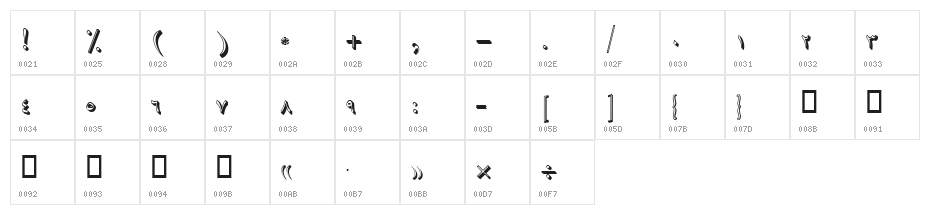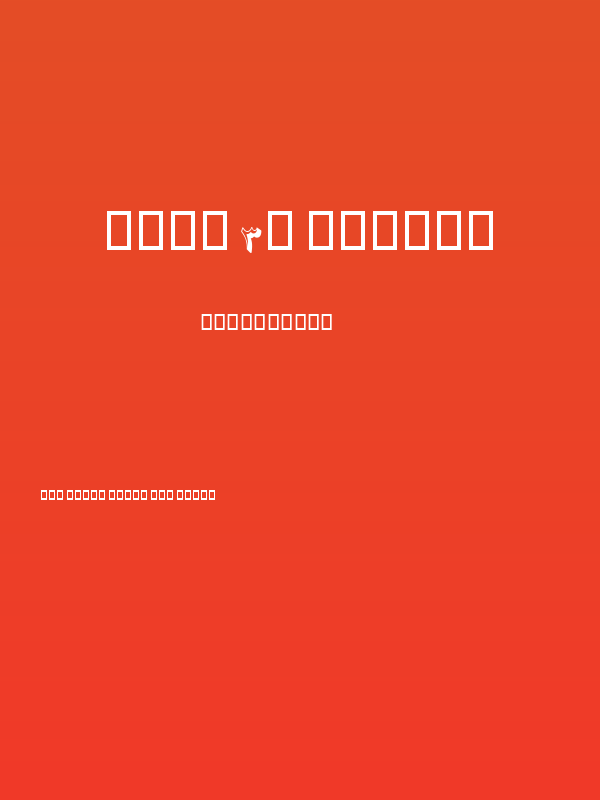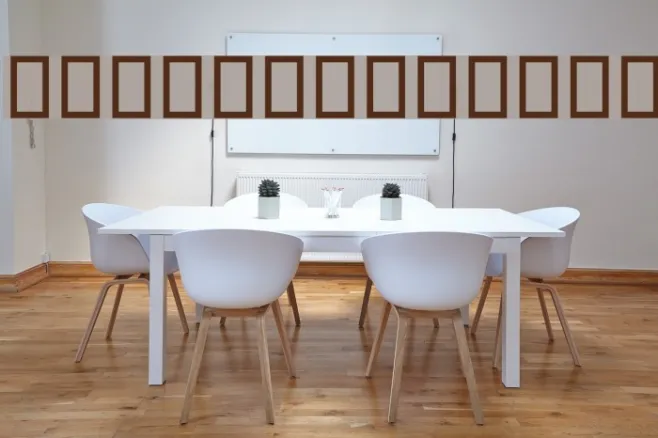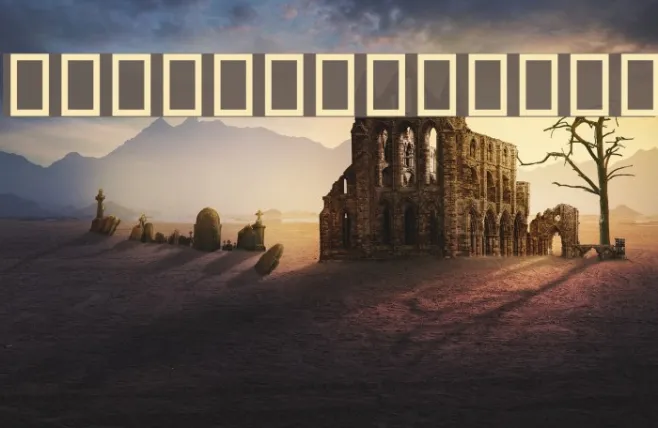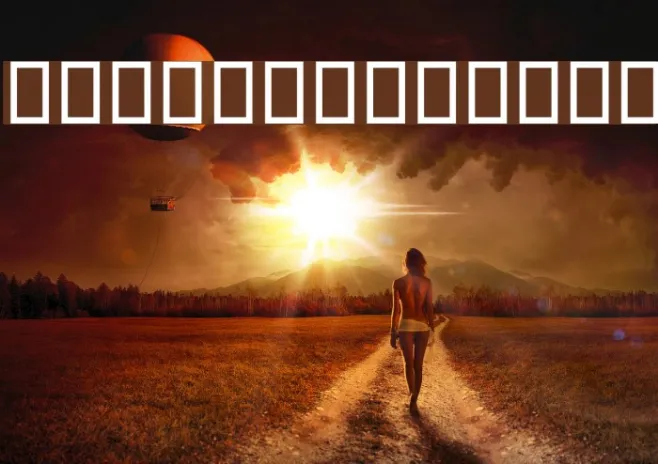
Text 3D Shadow Font
Text 3D Shadow Description
This font features a bold, three-dimensional shadow effect that gives each character a striking and dynamic appearance. The numbers are particularly stylized, with a playful and artistic flair that makes them stand out. The special characters, such as the exclamation mark and percentage sign, are designed with the same 3D shadow effect, adding to the overall cohesive look of the font. The style is reminiscent of retro or vintage designs, making it suitable for projects that require a touch of nostalgia or a bold statement. The font's unique characteristics make it ideal for eye-catching headlines or logos where a strong visual impact is desired.
| Proposed Projects | Ideal for retro-themed posters, eye-catching headlines, logos, and artistic designs. |